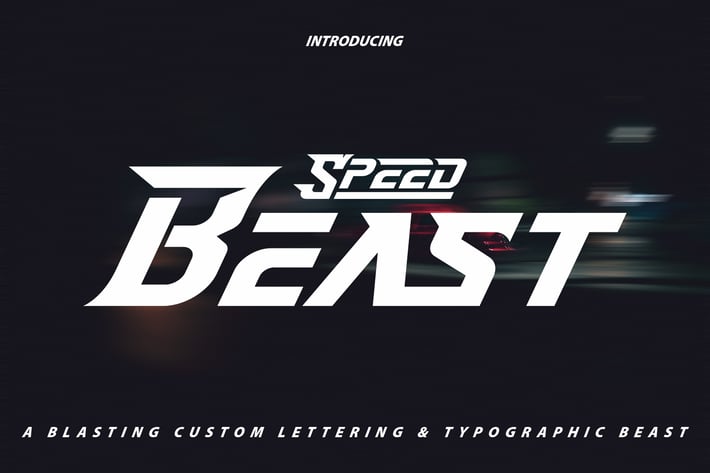
SpeedBeast | Custom Lettering & Typhographic Font
SpeedBeast | Custom Lettering & Typhographic Font with a calligraphy style, So beautiful on invitation like greeting cards, branding materials, business cards, quotes, posters, and more!